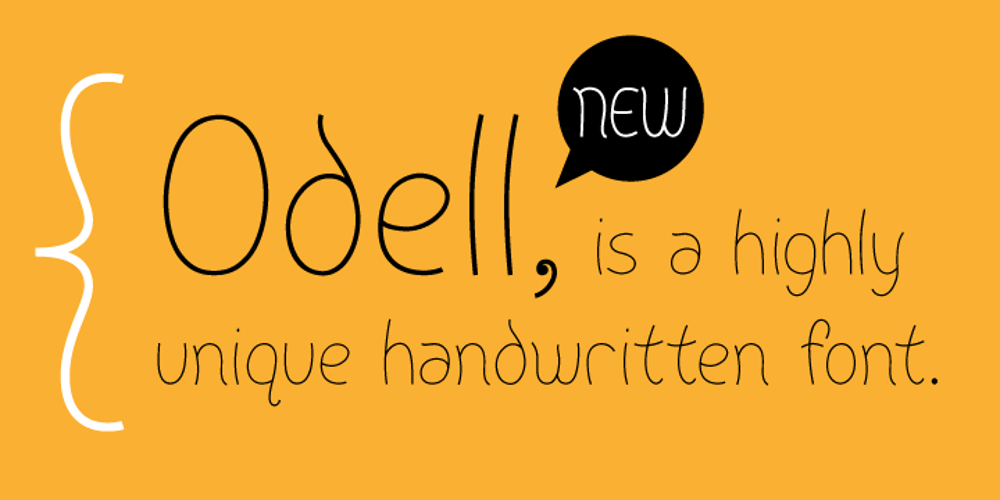
Odell
Odell font
Odell Font Family was designed by published by The Organic Type. Odell contains 1 styles and family package options. Odell is a fun, whimsical, yet elegant handwritten font that was created in a light-hearted manner for use in things like menus, invitations, bed and breakfast collateral and whatever else you can dream up. Odell features extra thin letters and it is designed to be creative, a little fancy, and very legible. There are tons of foreign characters to choose from so you can write in other languages as well.